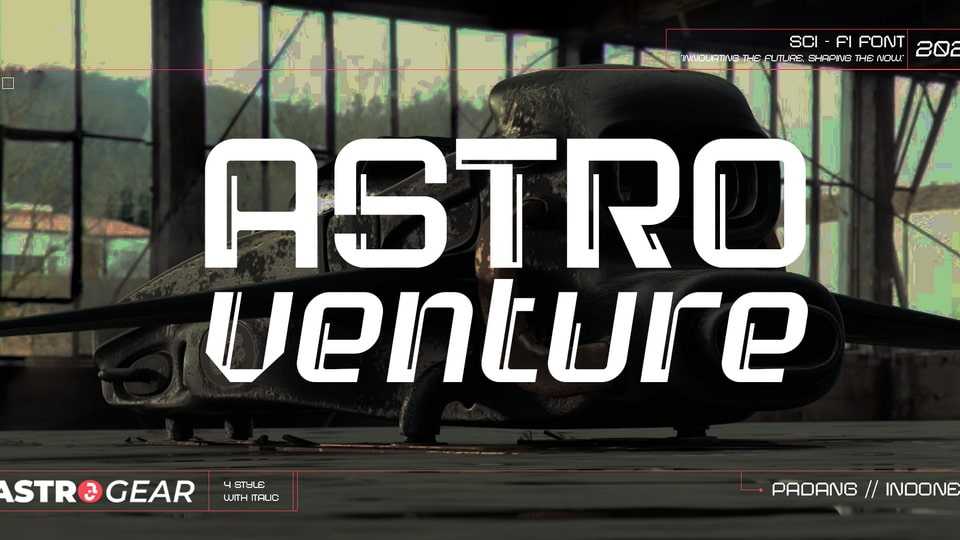
Download Astro Venture font, a forward-thinking typeface engineered for bold creatives. Designed with industrial precision and modern aesthetics, Astro Venture blends sharp, tech-inspired angles with smooth, structured curves.